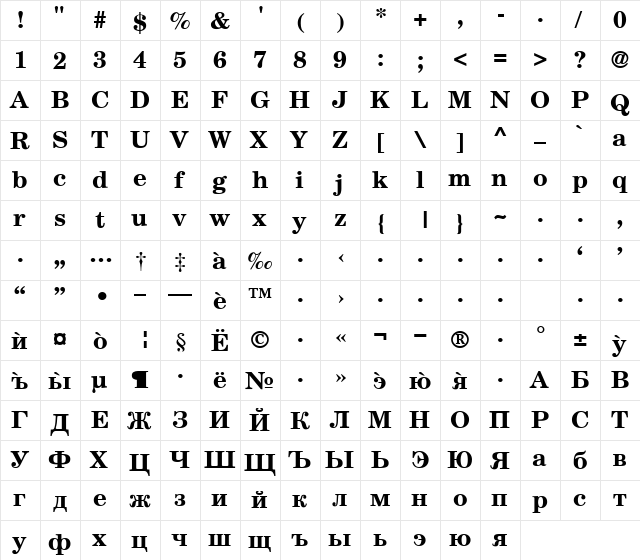
NewSaturionCyr Bold
Design Context for NewSaturionCyr Typeface
NewSaturionCyr offers clean, dependable letterforms without strong stylistic allegiance, making it a practical choice for designers who need flexibility. The heavy weight commands attention and anchors typographic hierarchies.